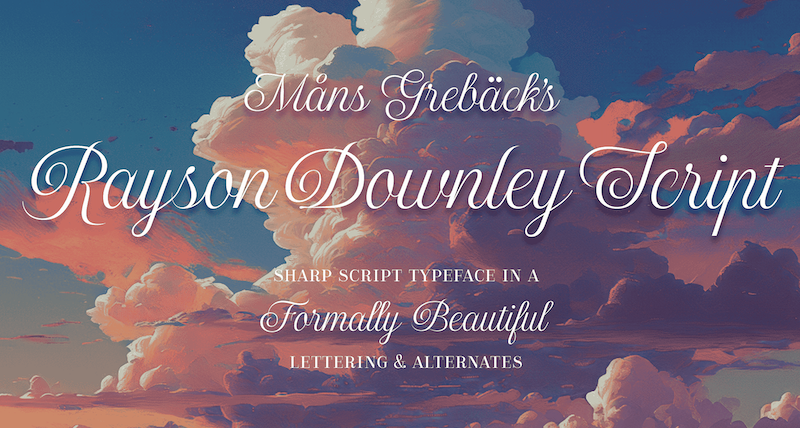
NOTE: This font is for PERSONAL USE ONLY! To purchase a commercial license, visit: https://www.mansgreback.com/product/rayson-downley A formal script typeface, Rayson Downley Script is crafted to bring an air of beauty to your text. Its swirly, elegant strokes create a lovely and inviting aesthetic, perfect for invitations and special occasions. The graceful curves and delicate lines impart a beautiful calligraphy, making it ideal for any setting that calls for a sophisticated and endearing touch. For questions, please visit https://mansgreback.com/faq |